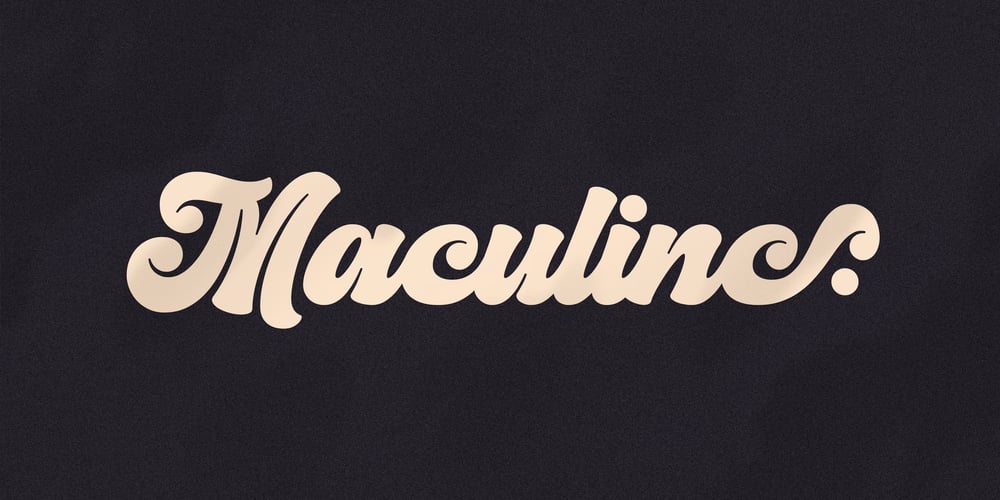
Maculinc Script Font Family was designed by Lukmanul Khikmatullah and published by Maculinc. Maculinc Script contains 5 styles and family package options. We present Maculinc Bold Script Font 🙂 Bold script font with classic and creative style, Maculinc Script is very special because it was originally a design for our logo “Maculinc.” then we decided to make it a font. We divide this font into 5 parts: Maculinc Regular, Maculinc Stick, Maculinc Separated, Maculinc Pro and Maculinc Swash.Each of these 4 fonts has ligatures and alternatives, complete with numbers, punctuation, and multilingual support, and for Maculinc Swash only swash is available. For Maculinc Pro itself is a special part of this font because it has all the letters from each existing font and many additional alternatives.With a classic, retro touch and combined with Maculinc Swash, this font is able to create amazing works, made to be very versatile – can be turned into sophisticated and complex projects – or bold and bold retro designs. Such as: business cards, t-shirt designs, logos, brand names, food menus, and many more.